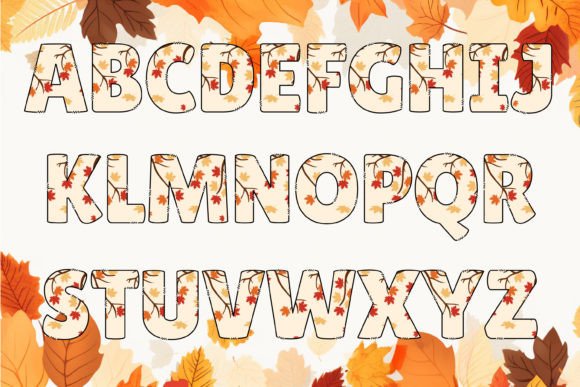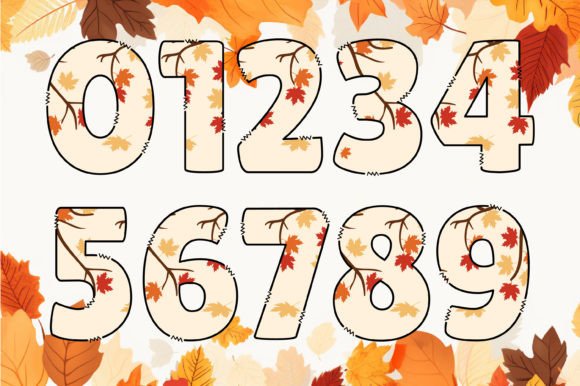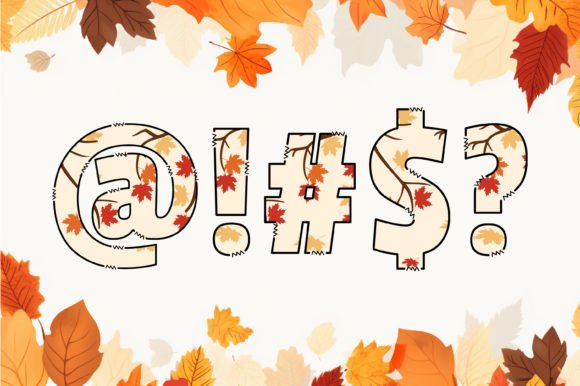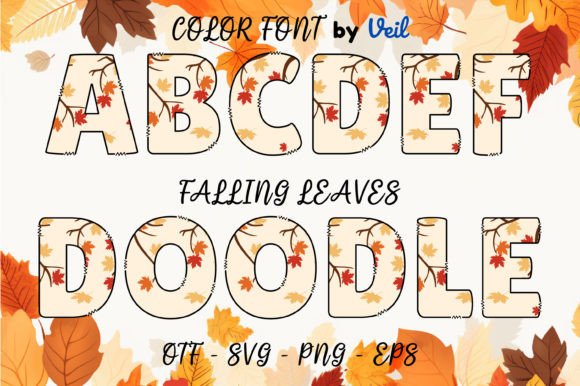
Falling Leaves Font: Adding a Touch of Whimsy to Your Designs
The Falling Leaves Font is a delightful and charming typeface that can add a playful touch to any design project. With its unique and artistic feel, this font is perfect for designers and crafters looking to create engaging and visually appealing materials. In this article, we’ll explore the characteristics of the Falling Leaves Font, its uses, and how it can elevate your designs to the next level.
What is Falling Leaves Font?
Falling Leaves Font is a typeface that features a whimsical and artistic design, reminiscent of hand-drawn letters. Its unique characteristics include irregular shapes, varying line widths, and a playful feel that makes it perfect for designs that require a touch of personality. This font is often used in designs that aim to convey a playful or artistic feel, such as children’s books, posters, invitations, greeting cards, and more.
Uses of Falling Leaves Font
These fonts are often used in designs that aim to convey a playful or artistic feel, such as:
- Children’s Books: Children’s books often utilize fonts that are whimsical, colorful, and easy to read, creating an engaging reading experience for young audiences. Falling Leaves Font is perfect for book covers, headings, and illustrations that require a playful touch.
- Posters: Posters are a great way to grab attention, and the Falling Leaves Font can add a creative and artistic feel to your design. Use it for titles, headings, or quotes to make your poster stand out.
- Invitations: Whether it’s a birthday party, wedding, or baby shower, the Falling Leaves Font can add a touch of whimsy to your invitations. Its playful feel makes it perfect for creating unique and memorable invitations.
- Greeting Cards: Greeting cards are a great way to express your feelings, and the Falling Leaves Font can help you create cards that are both personal and visually appealing. Use it for titles, messages, or decorations to make your cards special.
Benefits of Using Falling Leaves Font
The Falling Leaves Font offers several benefits for designers and crafters, including:
- Unique and Artistic Feel: The Falling Leaves Font has a unique and artistic feel that can add a touch of personality to your designs.
- Playful and Whimsical: This font is perfect for designs that require a playful and whimsical feel, making it ideal for children’s books, posters, and invitations.
- Easy to Read: Despite its artistic feel, the Falling Leaves Font is easy to read, making it perfect for body text and headings.
- Versatile: This font can be used in a variety of design projects, from digital designs to print materials.
Tips for Using Falling Leaves Font
Here are some tips for using the Falling Leaves Font in your designs:
- Use it Sparingly: While the Falling Leaves Font is playful and artistic, it can be overwhelming if used excessively. Use it sparingly to add a touch of personality to your designs.
- Pair it with Other Fonts: Pair the Falling Leaves Font with other fonts to create a unique and visually appealing design. You can use a serif font for body text and the Falling Leaves Font for headings.
- Experiment with Colors: The Falling Leaves Font looks great in a variety of colors, so don’t be afraid to experiment. Use bright and bold colors to add a playful touch to your designs.
| Font Name | Falling Leaves Font |
| Author | Veil |
The Falling Leaves Font is a delightful and charming typeface that can add a playful touch to any design project. With its unique and artistic feel, this font is perfect for designers and crafters looking to create engaging and visually appealing materials. Whether you’re designing a children’s book, poster, invitation, or greeting card, the Falling Leaves Font is a great choice. So why not give it a try and see how it can elevate your designs to the next level?